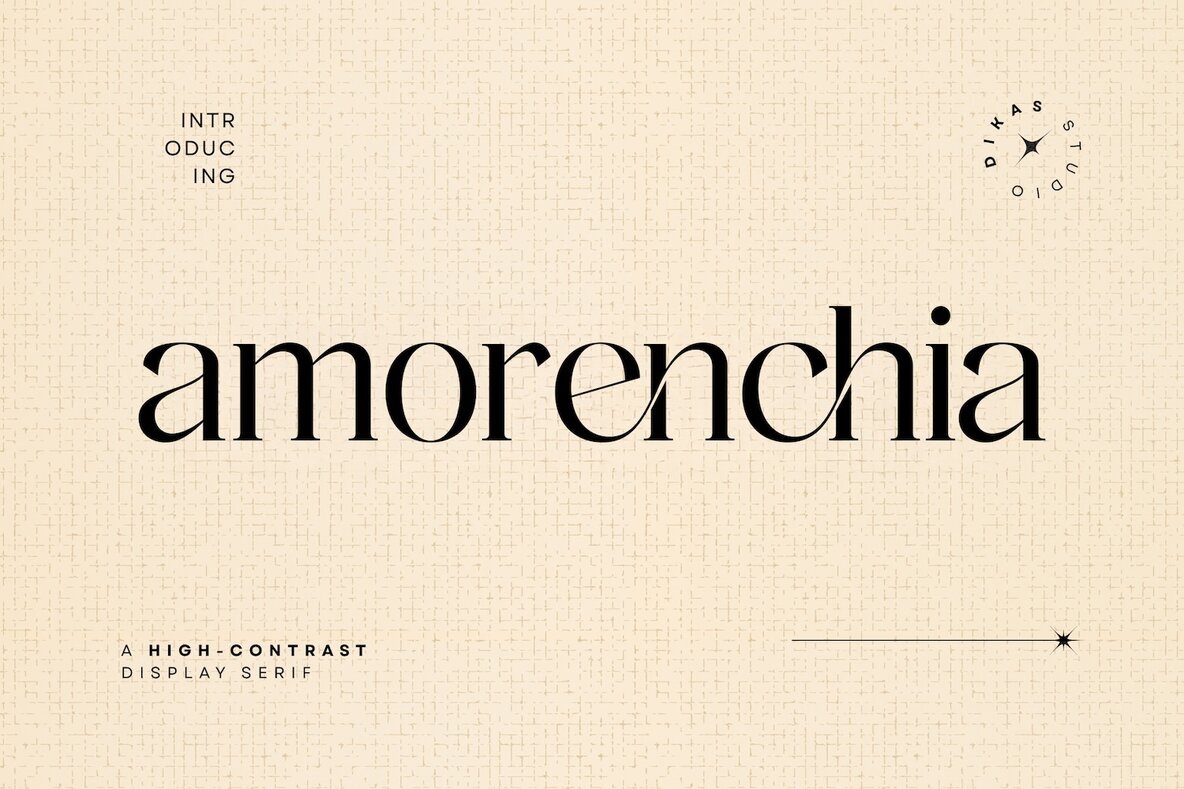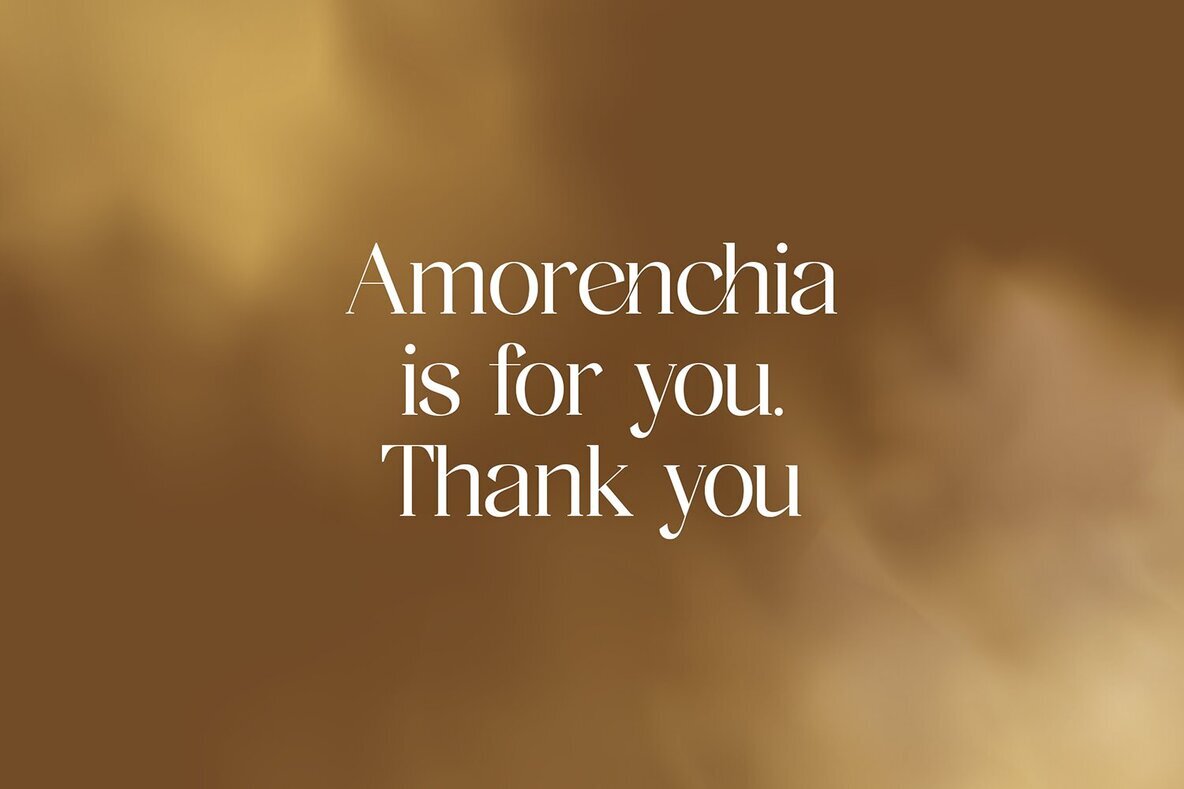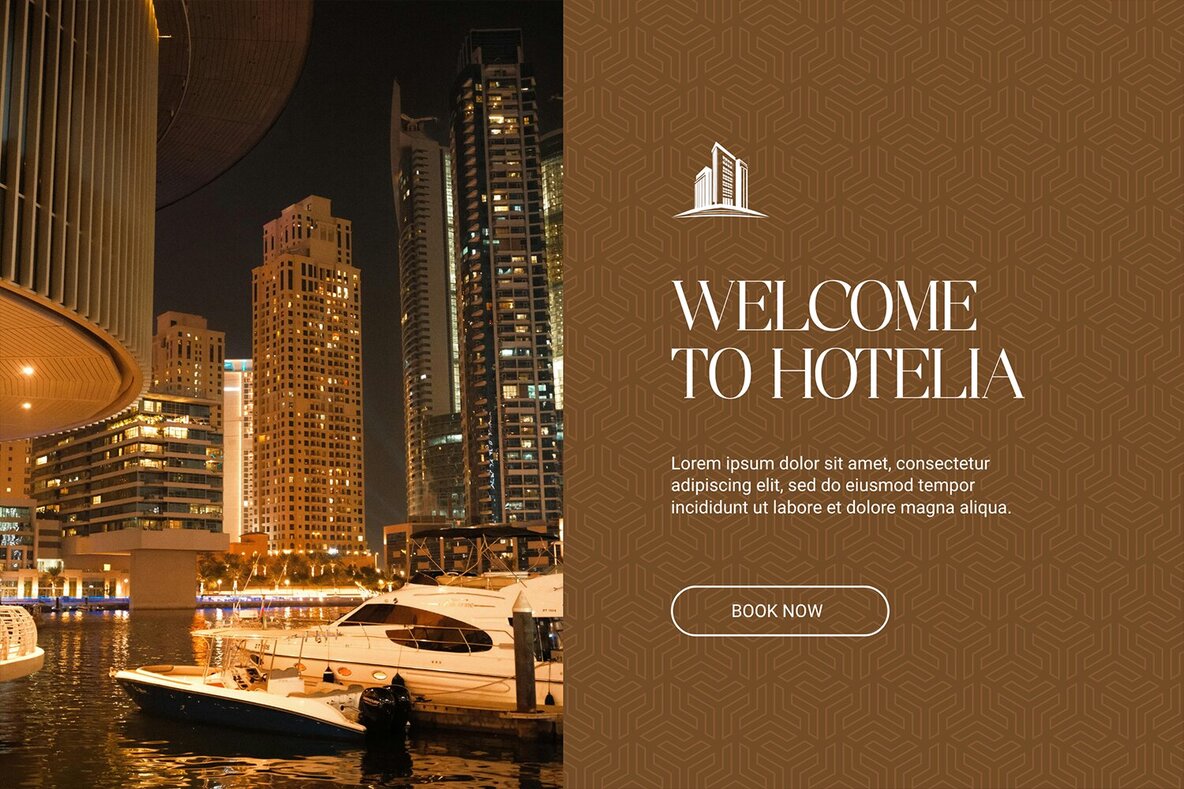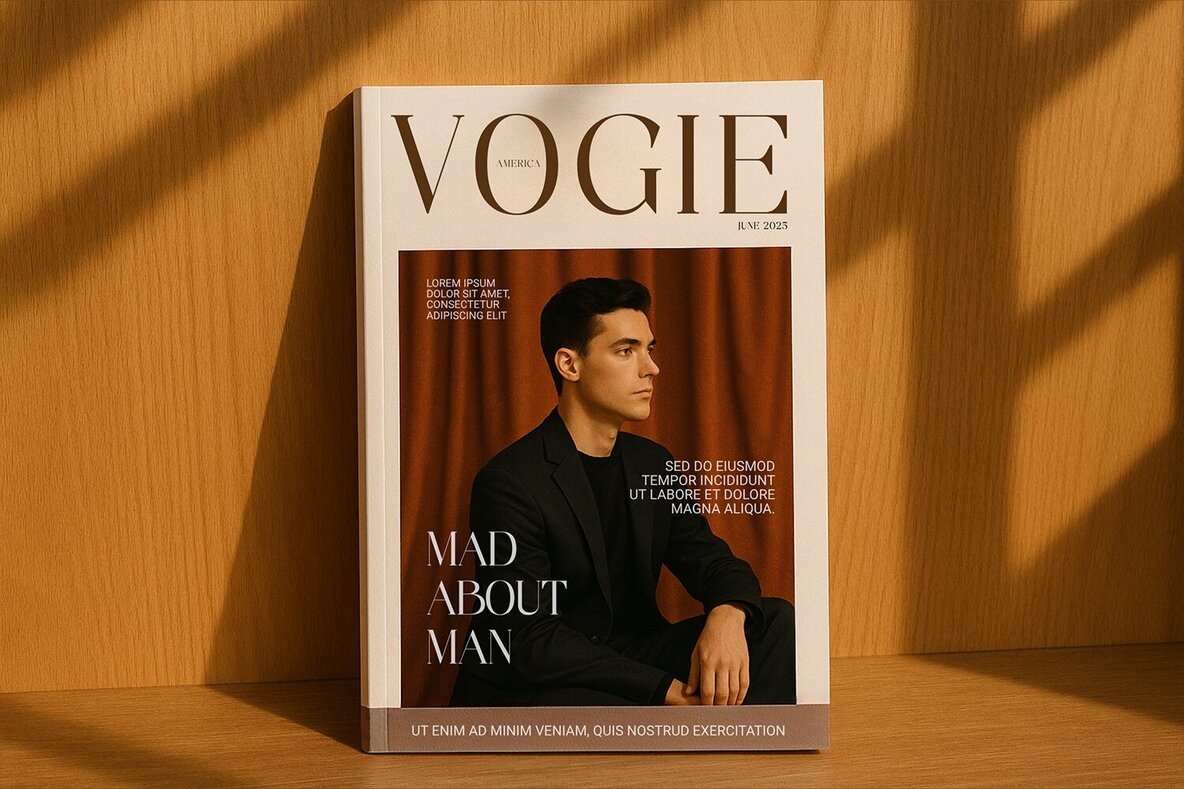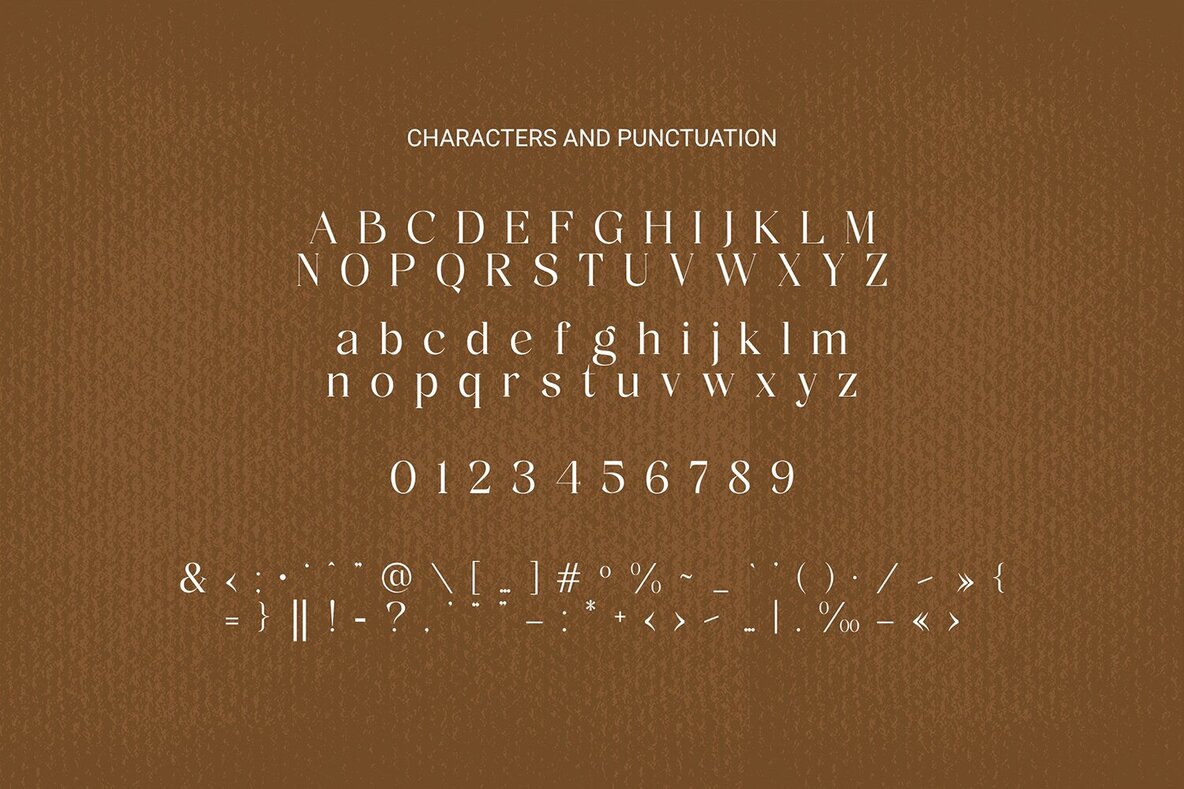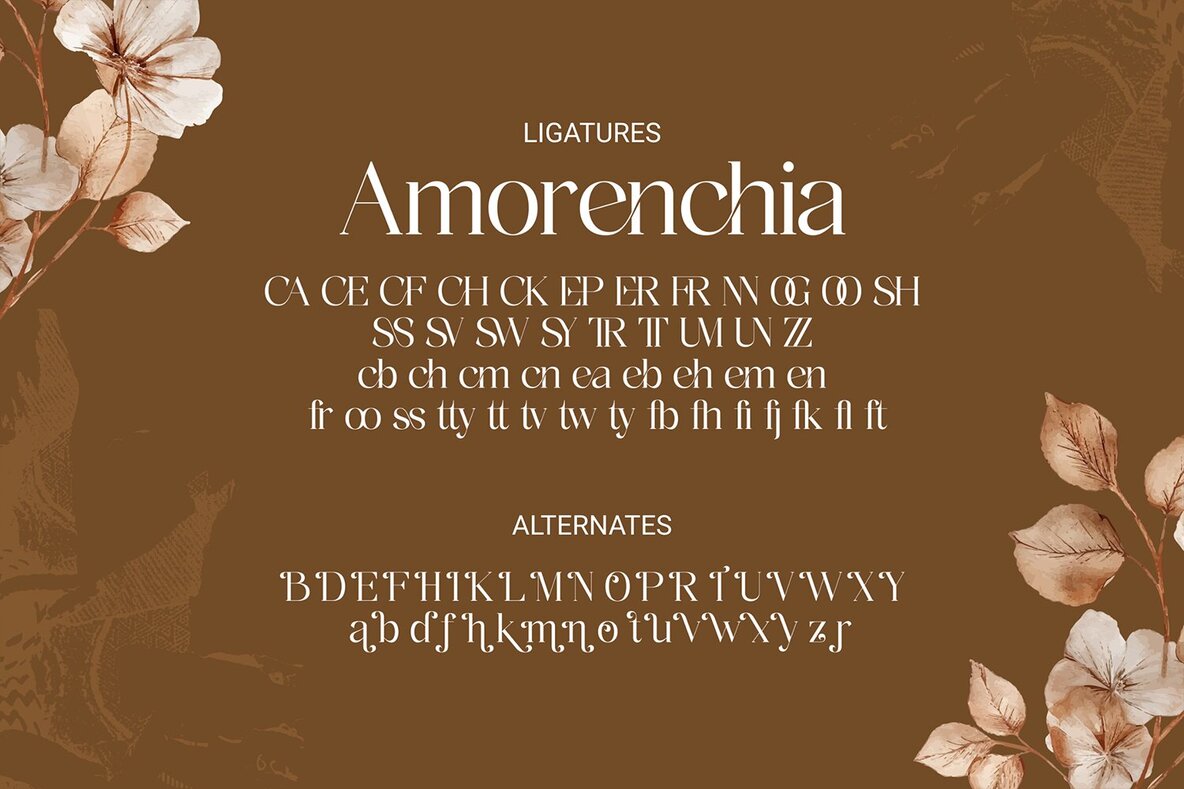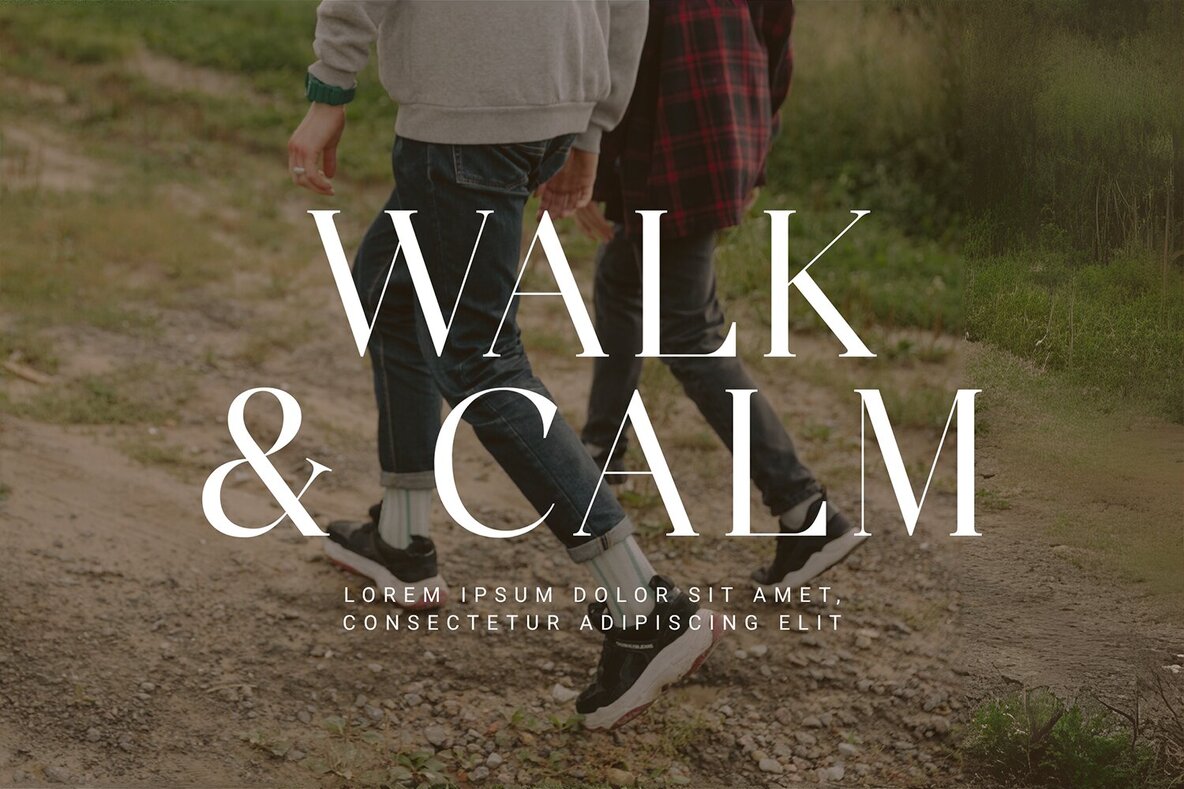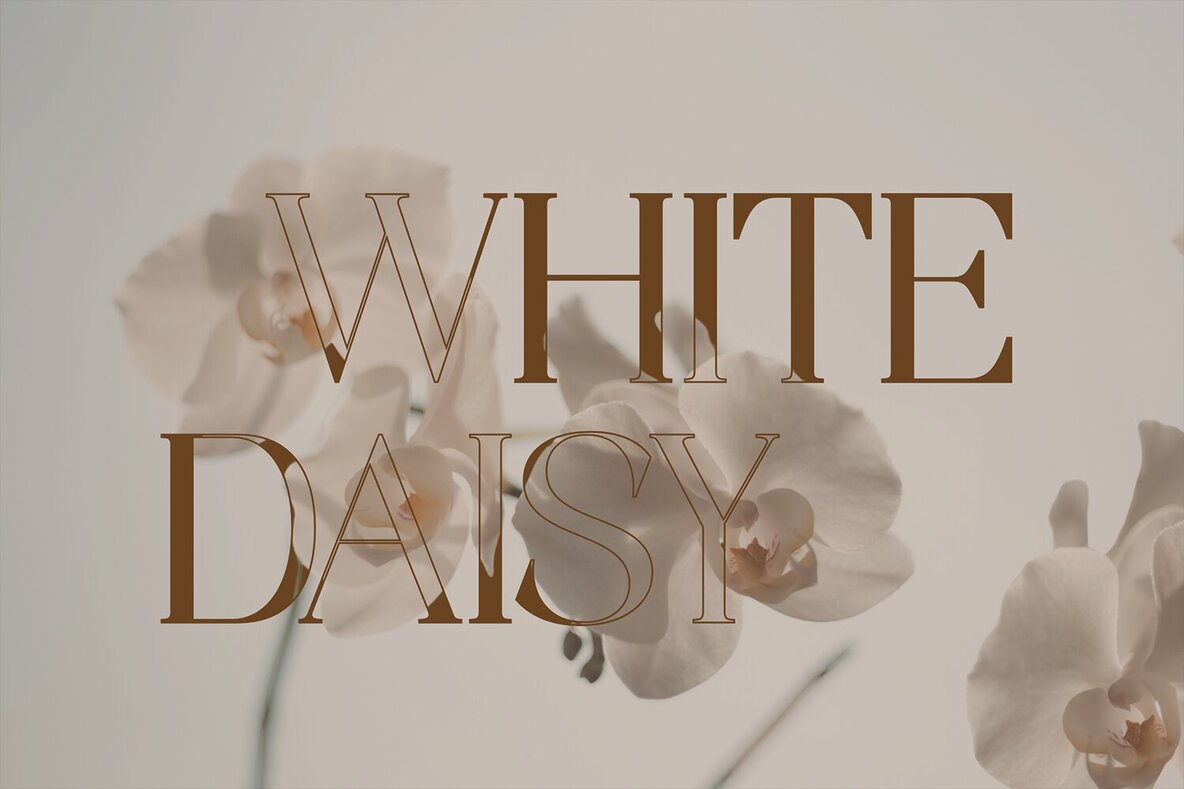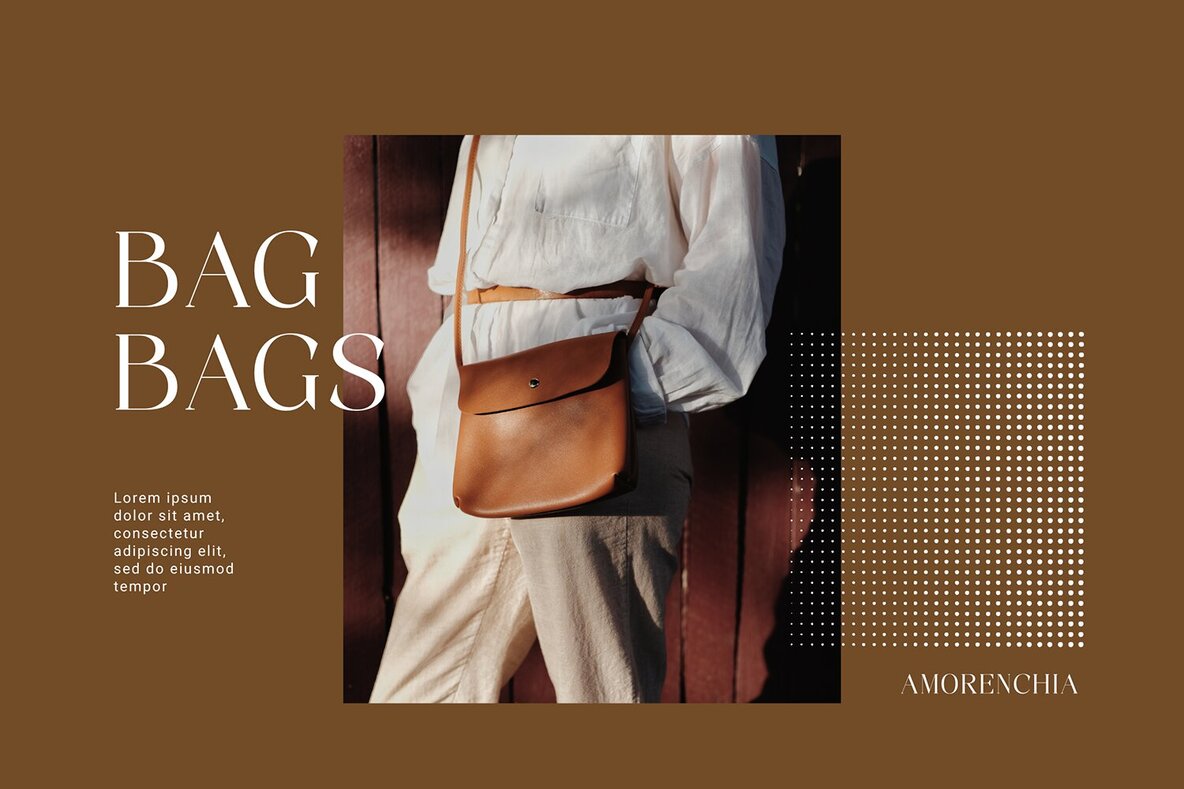
Amorenchia Font
Amorenchia Regular
Amorenchia is a sophisticated serif font renowned for its clean, sharp, and structured design. With thin strokes and precise letterforms, this typeface introduces an air of timeless elegance, perfect for any high-end visual project. Choose Amorenchia for a polished visual identity where elegance harmonizes with precision.Amorenchia: A Serif Font of Timeless Elegance
Features and Applications